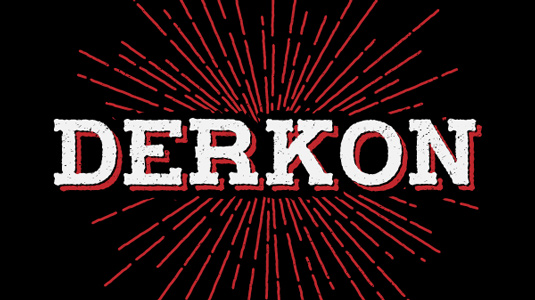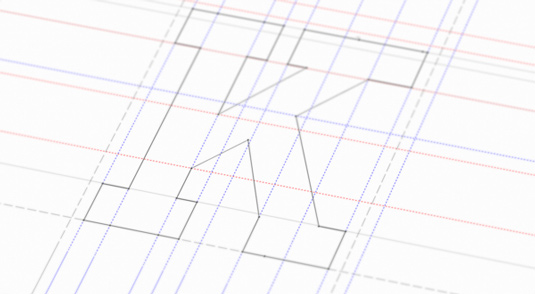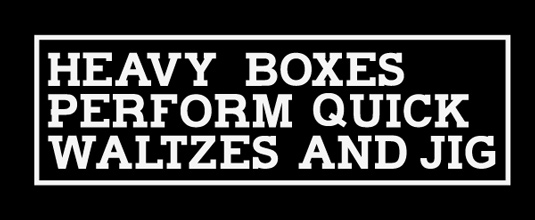
Font of the day: Derkon
Derkon by Sztuchlak Gergő
This retro-style design was created by graphic designer Sztuchlak Gergő. "Derkon lets you turn type into impressive and beautiful pieces of work," he comments on Behance. "The irregular, hand-made look adds a real human touch to things and comes along with a lot of cool details."